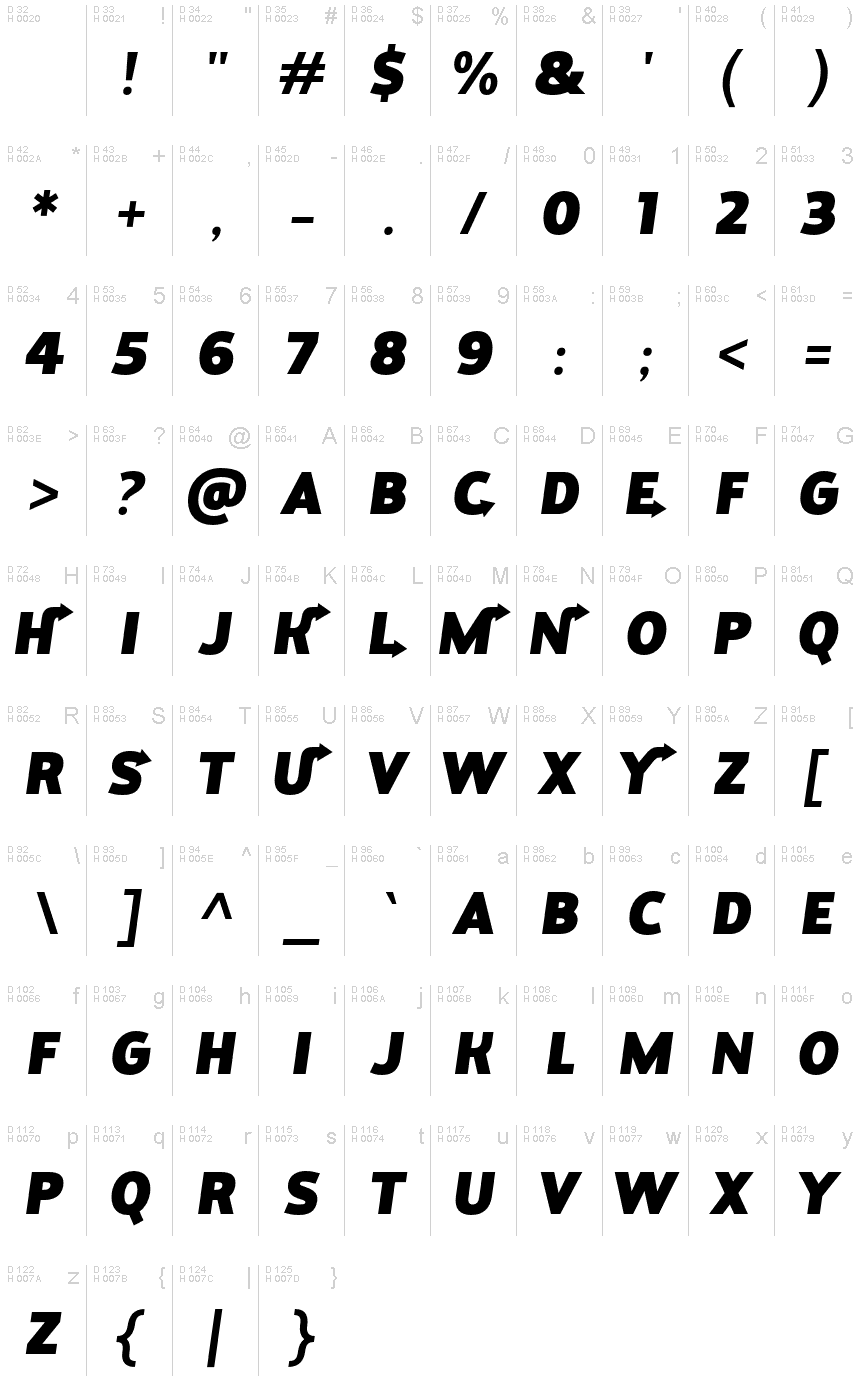
Sabwuy-Regular
Sabwuy, designed by Faqih Fawaji, is a stunning display font that's perfect for projects that require a bold and impactful look. The extra-bold weight of this typeface makes it particularly suitable for headlines, titles, and logos that demand attention. Its unique design features sharp edges and clean lines that give it a modern, sophisticated feel. Sabwuy's versatility also makes it ideal for use in branding projects or on packaging designs where you want to make a statement. Whatever your design needs may be, Sabwuy is sure to add an element of elegance and style to your work.